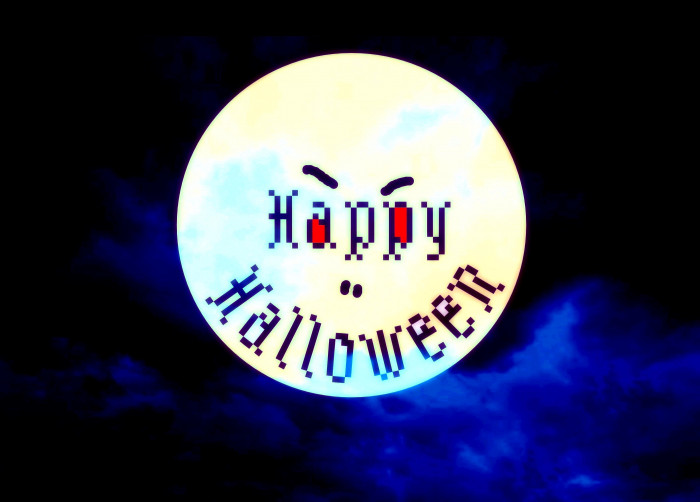
An old project put a day.
Excellent...love it!
@elmoyenique - A very nice pixel design.  Congratulations!  :^)
Cute, simple but effective :)
i kinda love it, you're incredible.
Great font!